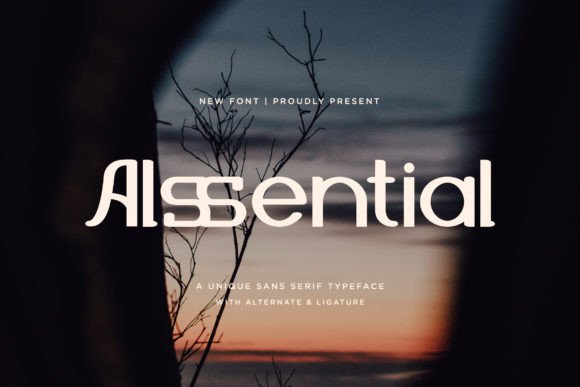
Introducing Alssential, the latest in sans serif fonts, meticulously crafted by the design masters at TypeFactory. This groundbreaking typeface is not just a collection of characters—it's an invitation to unleash your creative spirit and make a bold statement.
Alssential is not just another sans font; it's a gateway to a new realm of design possibilities. Its clean lines and modern aesthetic make it the perfect choice for music posters, where every note and lyric deserves to be showcased with style.
Imagine your music poster adorned with Alssential's captivating curves and sharp angles. The music will come alive, drawing listeners into the rhythm and the lyrics will dance before their eyes. With Alssential, your designs will resonate with music lovers, creating an unforgettable sensory experience.
But Alssential's allure extends far beyond music posters. Its versatility knows no bounds. From sleek logos to captivating website headlines, Alssential will transform your words into visual masterpieces. Let its modern charm elevate your brand identity or add a touch of sophistication to your online presence.
Whether you're a seasoned designer or just starting your creative journey, Alssential is the perfect companion. Its intuitive nature makes it accessible to all, empowering you to create designs that captivate and inspire.
Embrace the power of Alssential, the sans font that will revolutionize your design game. Let its bold strokes and modern flair ignite your imagination and craft creations that leave a lasting impression.